Looking for the perfect font to give your designs a magical Disney vibe? Canva, a popular online design tool, has a wide range of fonts that capture the essence of Disney’s iconic style. While the exact Disney fonts may not be available due to copyright restrictions, several great alternatives can help sprinkle some of that beloved Disney magic into your projects. In this article, we will explore the 20 best alternative Disney fonts available on Canva that can help bring your fairy tale designs to life. These fonts are perfect for creating everything from enchanting invitations to spellbinding social media posts. Let’s discover the fonts that will make your designs truly magical.
1. Pacifico
This font has a soft, flowing script that is reminiscent of the 1950s American surf culture. Its rounded edges and loose, cursive style make it a great alternative to the Disney font, capturing a sense of fun and adventure.
Why it’s the best alternative: This font is a great alternative due to its laid-back and joyful script, which captures the fun and adventure often found in Disney films, making it ideal for friendly and engaging designs.
2. Virtual
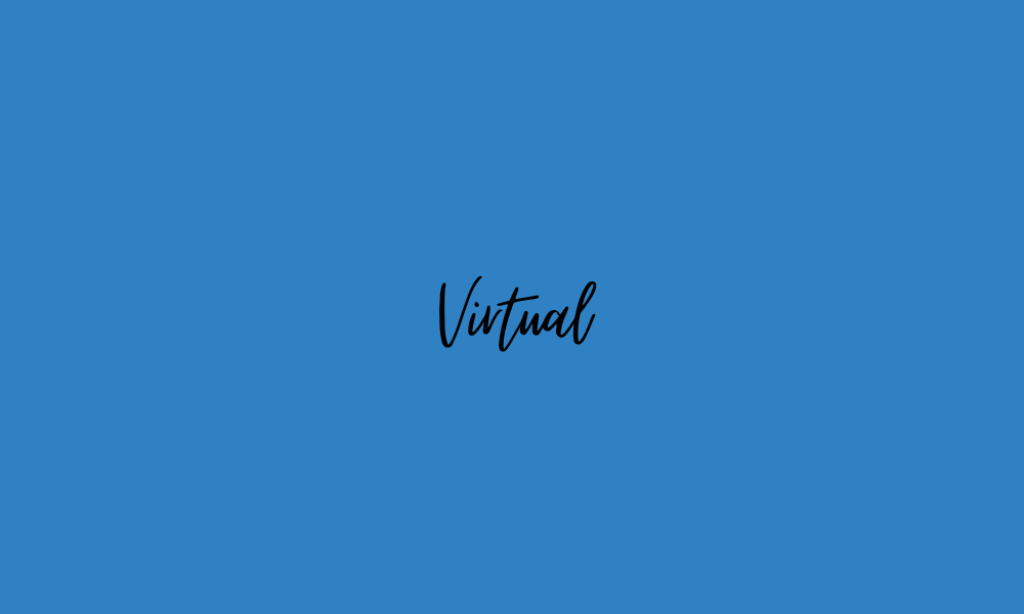
Virtual is a modern, clean font with a futuristic edge. It’s included in this list for its sleek and smooth lines that offer a contemporary twist, suitable for modern interpretations of classic Disney themes.
Why it’s the best alternative: Its sleek and modern appearance offers a futuristic twist, making it the best alternative for projects that aim to blend classic Disney themes with a contemporary aesthetic.
3. Themysion
This font presents a classic and elegant design, with sharp serifs and a formal structure. It’s reminiscent of the traditional storytelling aspect of Disney, making it a sophisticated alternative.
Why it’s the best alternative: With its classic and elegant style, Themysion is perfect for designs that require a touch of sophistication and timelessness, mirroring the enduring legacy of Disney storytelling.
4. Amsterdam One
Known for its playful and whimsical script, Amsterdam One captures the magical and dreamy essence of Disney. Its hand-written style and casual flow give it a personal and inviting feel.
Why it’s the best alternative: The playful and whimsical nature of Amsterdam One captures the essence of Disney’s magical and dreamy narratives, making it an excellent choice for capturing the enchantment of Disney stories.
5. Tangerine
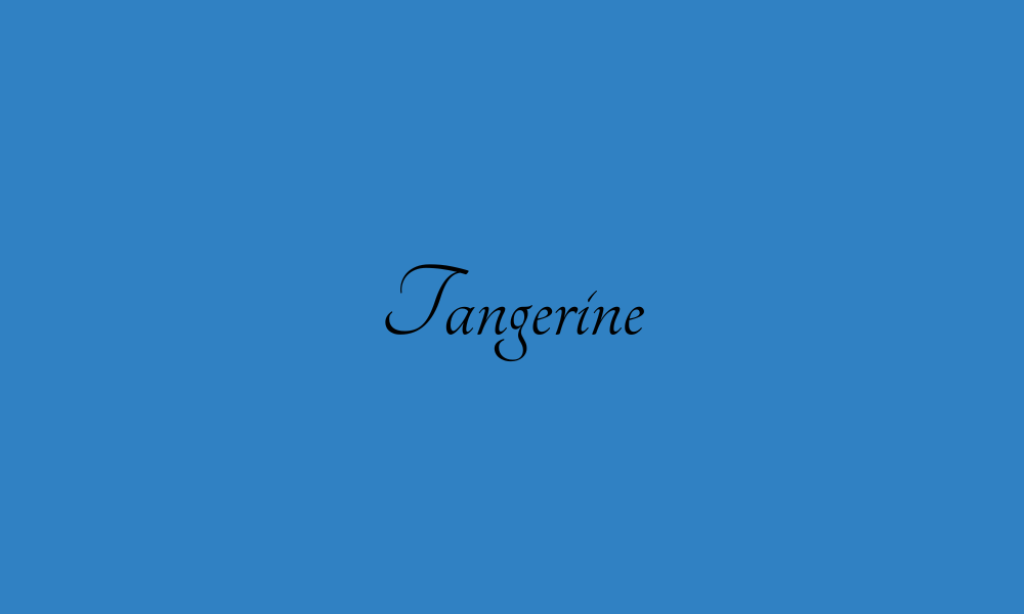
With its beautiful, elongated strokes and delicate script, Tangerine is evocative of fairy tale writings, making it a perfect fit for a Disney-like font. It brings elegance and a touch of sophistication to any design.
Why it’s the best alternative: Its elegant and fairytale-like script makes Tangerine an ideal alternative for creating designs that require a touch of Disney’s classic and whimsical charm.
6. Bellaboo
This font is bold and fun, with a hand-drawn appearance that exudes playfulness. Its rounded form and simplicity echo the friendly and approachable vibe of Disney characters.
Why it’s the best alternative: The bold and simple style of Bellaboo reflects the approachable and friendly nature of Disney characters, making it a top alternative for lively and inviting designs.
7. Bright Sunshine
As the name suggests, this font has a cheerful and uplifting quality. Its casual brush strokes and lively script make it ideal for capturing the joyful and optimistic spirit of Disney stories.
Why it’s the best alternative: Its cheerful and uplifting script embodies the optimistic and joyful spirit of Disney, making Bright Sunshine a natural choice for designs that aim to inspire happiness and fun.
8. Satisfy
Satisfy blends the classic with the casual, offering a flowing script that’s both elegant and relaxed. It strikes a balance that’s reminiscent of the Disney font’s ability to appeal to both young and old audiences.
Why it’s the best alternative: Satisfy’s blend of elegance and casualness mirrors Disney’s ability to captivate both children and adults, making it a versatile and fitting alternative for a range of Disney-inspired projects.
9. Yellowtail
This font has a flat brush style that combines retro and modern elements. Its mid-century appeal and fluid script form make it a nostalgic yet timeless choice, aligning well with the timeless nature of Disney films.
Why it’s the best alternative: The retro and fluid style of Yellowtail captures a sense of nostalgia and timelessness, aligning closely with the classic appeal of Disney animations and making it a strong alternative.
10. Mistrully
Mistrully’s brush script is raw and energetic, bringing a sense of excitement and spontaneity. Its informal and expressive style can add a dynamic and fun element to designs, echoing the animated nature of Disney characters.
Why it’s the best alternative: Its spontaneous and energetic brush script brings a dynamic and animated feel, perfect for designs that aim to reflect the lively and adventurous spirit of Disney tales.
11. Daydream
True to its name, Daydream offers a whimsical and light-hearted script, perfect for conveying the fantasy and wonder often found in Disney stories. Its soft and flowing lines suggest a world of imagination and dreams.
Why it’s the best alternative: The whimsical and soft script of Daydream is ideal for conveying the fantasy and wonder of Disney worlds, making it a top choice for dreamy and imaginative designs.
12. Kaushan Script
With its distinctive brush strokes and informal structure, Kaushan Script brings a sense of individuality and boldness. Its energetic and dynamic flow can inject life into designs, similar to the lively animations of Disney.
Why it’s the best alternative: Its individuality and boldness make Kaushan Script a great alternative for projects that aim to capture the energetic and vibrant nature of Disney characters and stories.
13. Gistesy
This font is quirky and unique, with a playful rhythm in its letterforms. Its unconventional style can bring fresh and creative energy to projects, mirroring the innovative storytelling of Disney.
Why it’s the best alternative: The playful and creative rhythm of Gistesy makes it an excellent alternative for designs that seek to embody the innovative and unique storytelling of Disney.
14. Gloria Hallelujah
This font looks like it’s straight out of a personal diary, giving it a genuine and heartfelt feel. Its casual and unpretentious style can create a friendly and inviting atmosphere, much like the welcoming world of Disney.
Why it’s the best alternative: Its genuine and heartfelt appearance makes Gloria Hallelujah a perfect alternative for creating a friendly and welcoming Disney-like atmosphere in designs.
15. Caveat Brush
Fast and loose, Caveat Brush has a hand-painted quality that’s full of movement and life. Its expressive and free-flowing nature captures the adventure and excitement of Disney stories.
Why it’s the best alternative: The expressiveness and movement of Caveat Brush capture the adventurous and exciting essence of Disney stories, making it a fitting alternative for dynamic and lively designs.
16. Imperfect
As the name implies, Imperfect has a raw and unrefined edge, which adds character and authenticity to its script. This font can bring a human touch to designs, reflecting the imperfect but endearing qualities of many Disney characters.
Why it’s the best alternative: The authentic and unrefined style of Imperfect makes it a great alternative for adding character and a human touch to designs, reflecting the relatable and endearing qualities of Disney narratives.
17. Badhorse Script
With its bold and impactful style, Badhorse Script commands attention while maintaining a sense of fun and flamboyance, much like many of Disney’s most memorable characters.
Why it’s the best alternative: Its flamboyant and bold nature captures the attention-grabbing and memorable aspects of Disney characters, making Badhorse Script a standout alternative for impactful designs.
18. Jimmy Script
Jimmy Script has a friendly and approachable look, with a hand-lettered style that’s both personal and expressive. Its warm and inviting character makes it a great choice for designs that aim to capture the heartwarming essence of Disney stories.
Why it’s the best alternative: The warmth and expressiveness of Jimmy Script make it an excellent alternative for designs that aim to capture the heartwarming and personal touch of Disney stories.
19. Twister
This font is playful and energetic, with letters that seem to dance around. Twister’s lively and animated style can add a touch of whimsy and excitement, reminiscent of the magical moments in Disney movies.
Why it’s the best alternative: Its animated and whimsical style makes Twister a perfect alternative for adding a sense of magic and excitement, akin to the whimsical moments in Disney movies.
20. Pinyon Script
Offering a classic and elegant script with flowing lines and formal flourishes, Pinyon Script exudes a sense of sophistication and old-world charm, akin to the grandeur and timeless beauty found in many Disney films.
Why it’s the best alternative: The elegance and formal flourishes of Pinyon Script reflect the grandeur and beauty of Disney’s classic films, making it an ideal alternative for designs that aim to convey a sense of sophistication and timelessness.